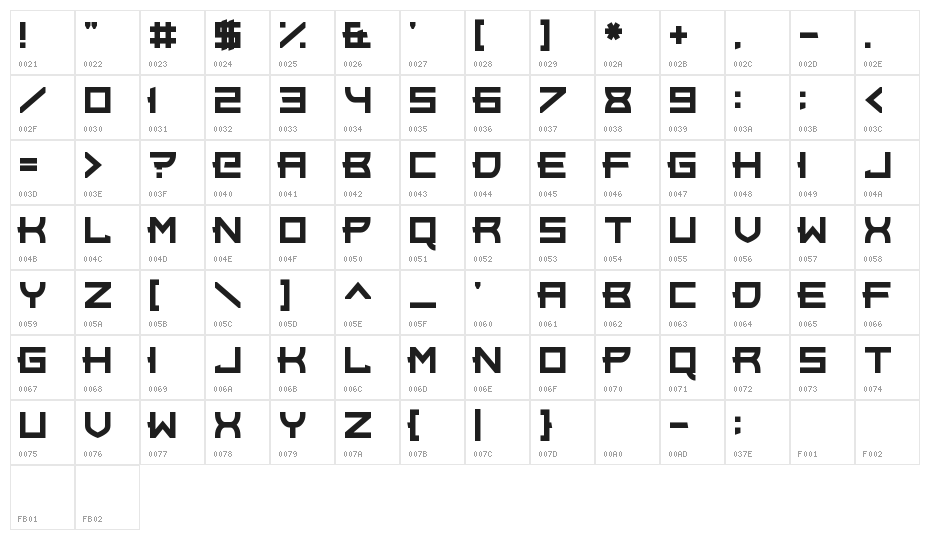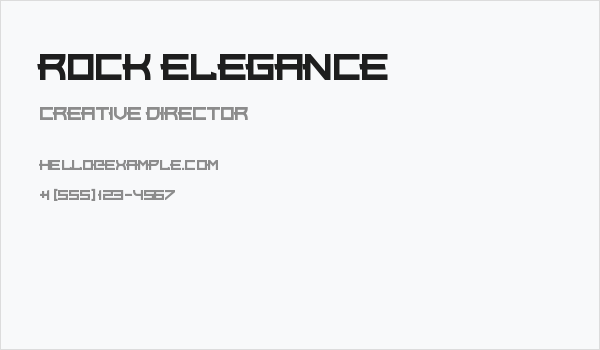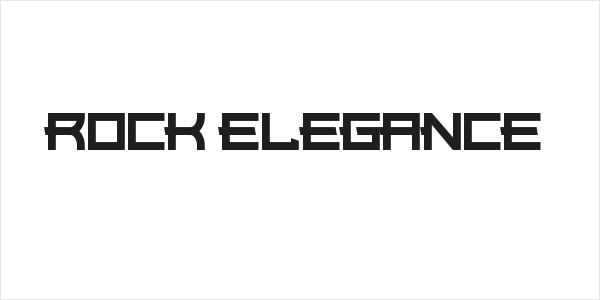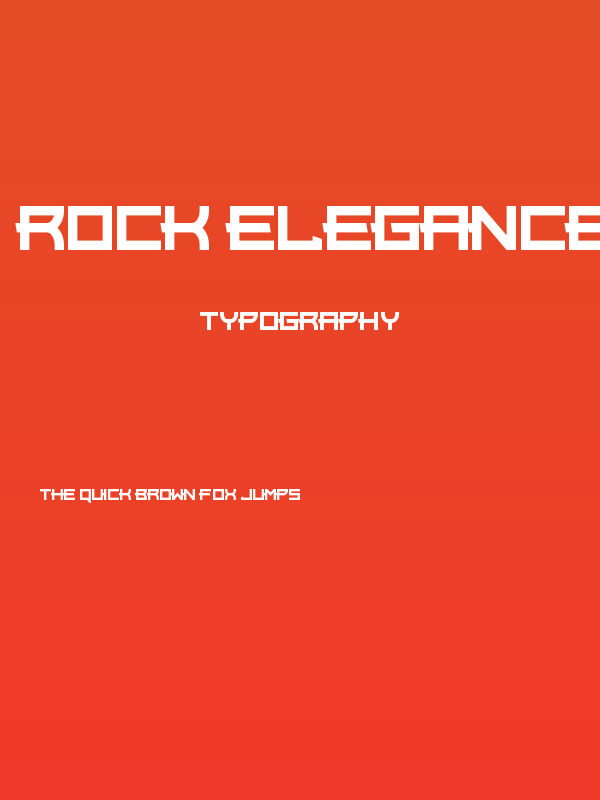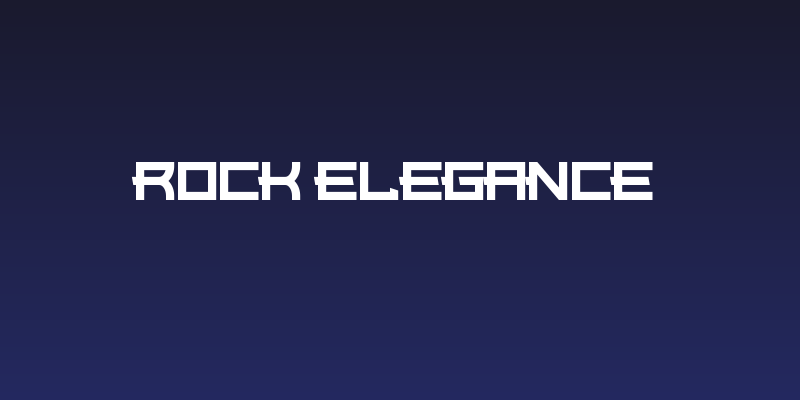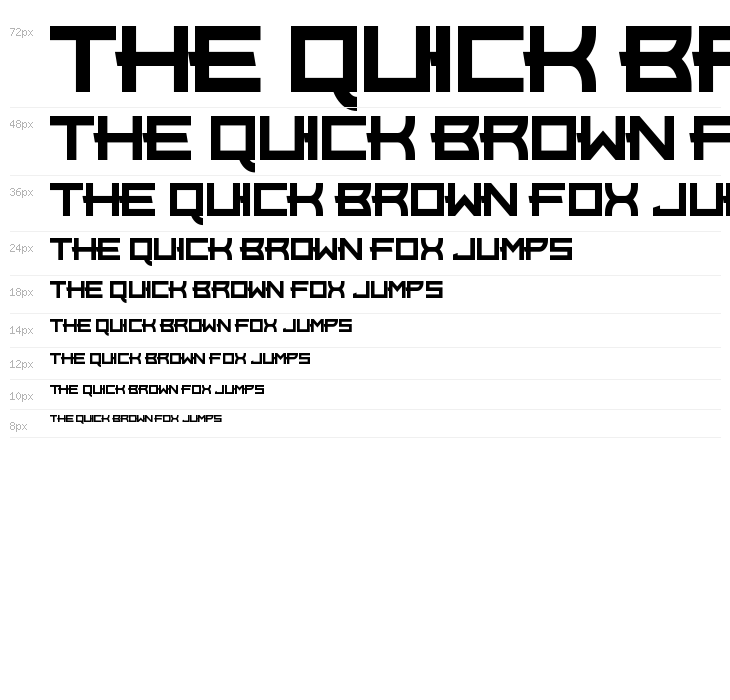
Rock Elegance Font
Rock Elegance Description
This font features a bold and geometric design, characterized by sharp angles and a futuristic aesthetic. The uppercase letters are uniform in height, with distinct angular cuts that give a modern and edgy feel. The lowercase letters maintain the same angular style, ensuring consistency throughout the typeface. Numbers are designed with the same boldness, making them stand out with clarity. Special characters are crafted to match the overall geometric theme, providing a cohesive look. This font is ideal for projects that require a strong visual impact, such as branding, posters, or digital media.